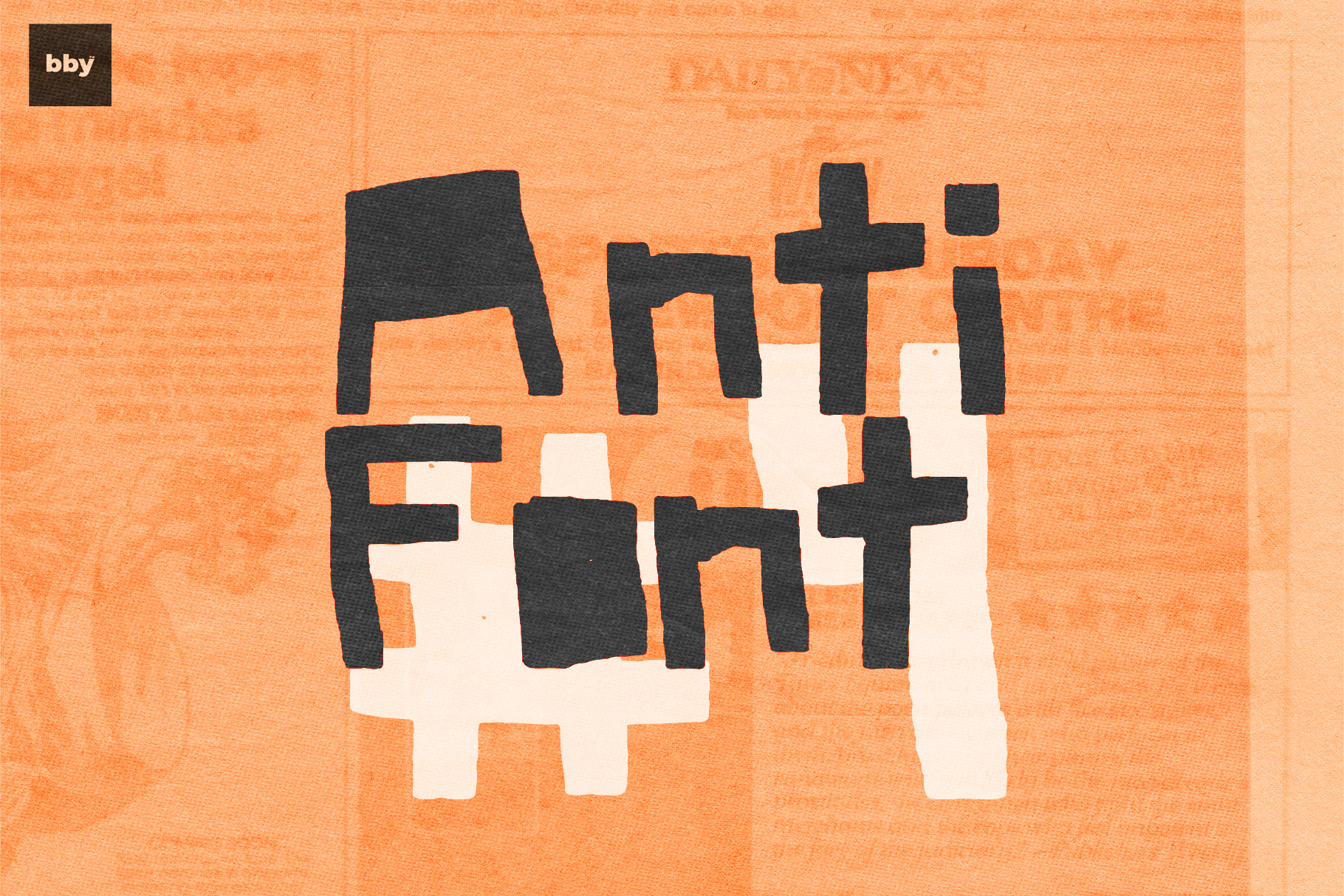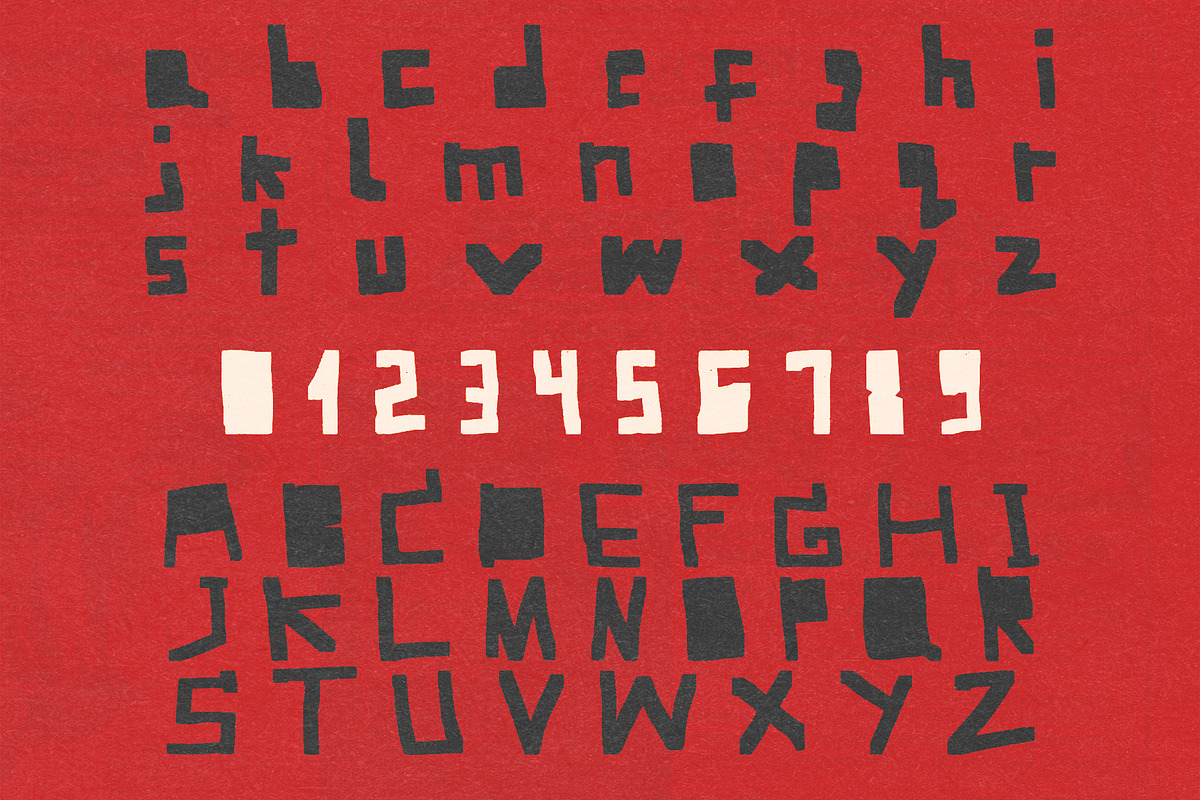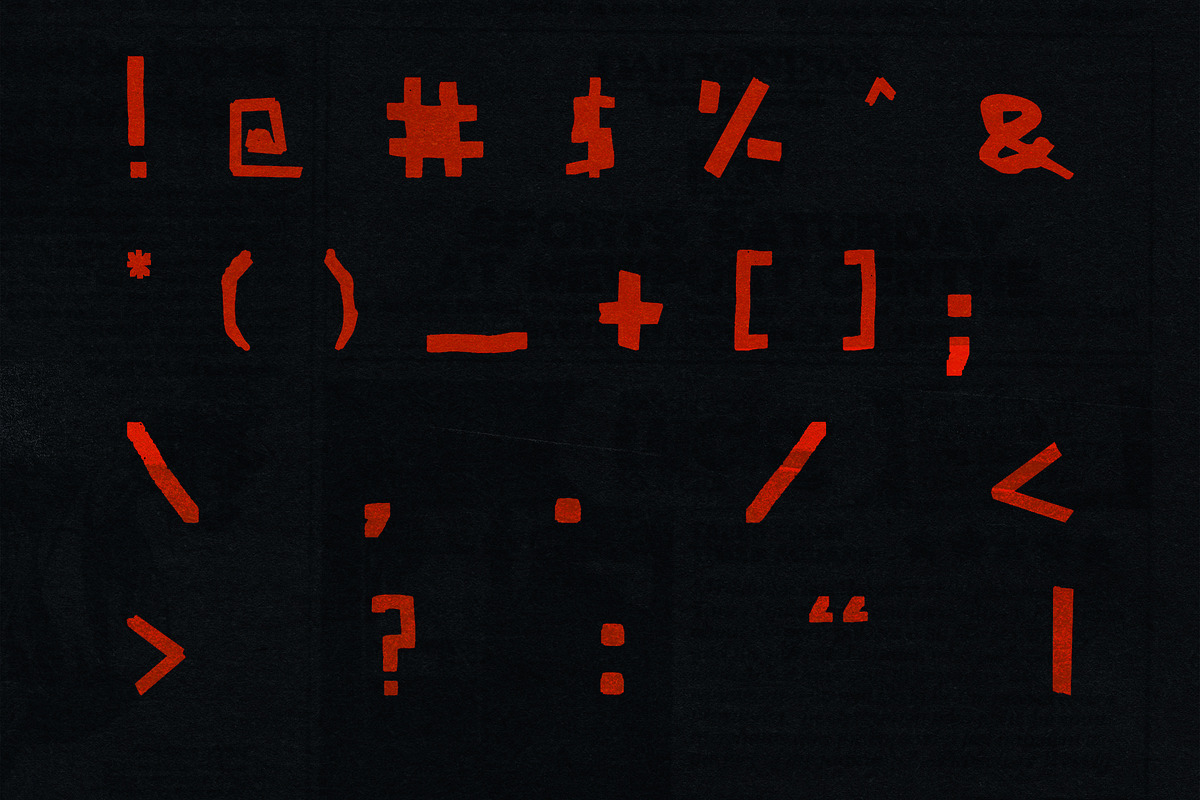
Anti-Font #4
An anti-font with its own identity, the Anti-Fonts buck the rules of conventional design in favor of challenging, experimental looks. When it's time to up your game in the world of type, get ready for a radical redesign. The Anti-Fonts are inspired by the anti-design movement, revamping established strategies and styles in favor of an experimental, almost cosmic style. Create your prints or designs with unique fonts and see them instantly come to life. Anti-fonts are created by breaking traditional design rules in a few deliberate ways: they're devoid of serifs, their baseline can be anything that you want, their shapes aren't constrained and every letter is different.